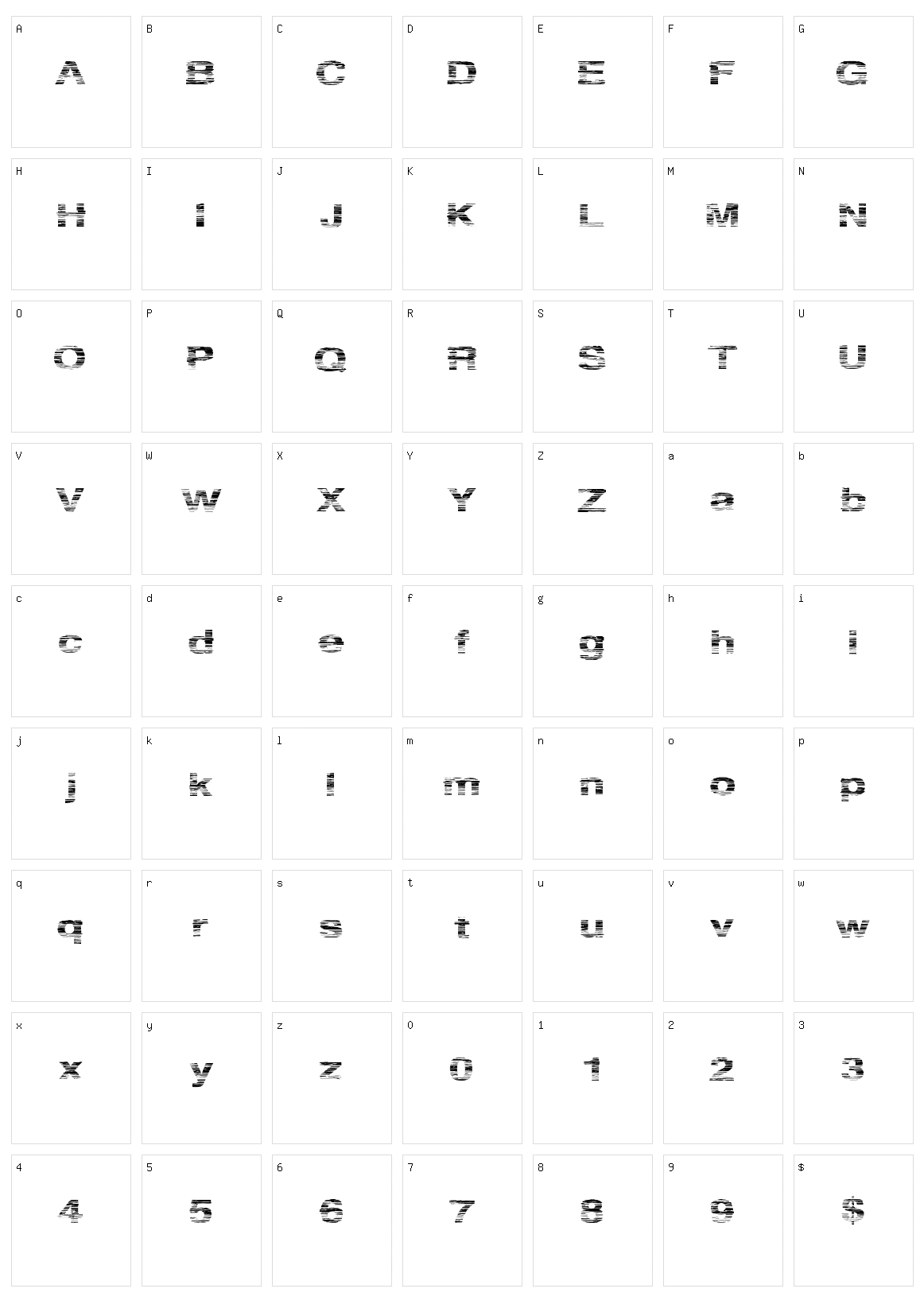
The free font Spring Party is carefully designed by Xerographer Fonts, showcasing a thoughtful balance of creativity and usability and falls under the Eroded font style. When you download the ZIP file, it contains only 263.01 KB of font files, making it lightweight and quick to download. Please review the license details below to understand permitted usage and distribution rights. If license information is not available, we recommend using this font for personal projects only or contacting the author directly for commercial usage permissions.